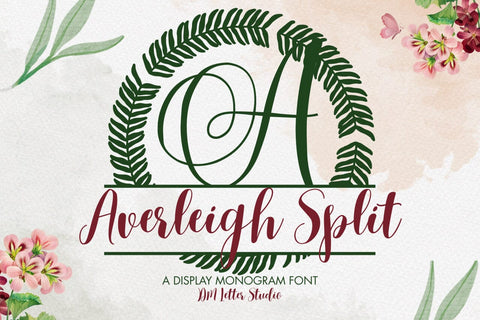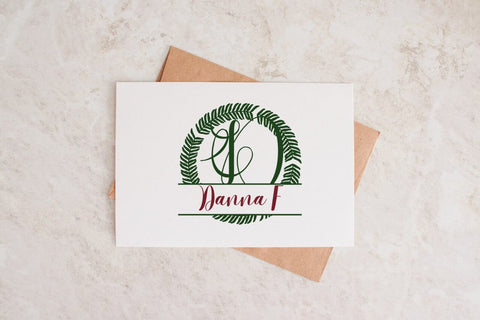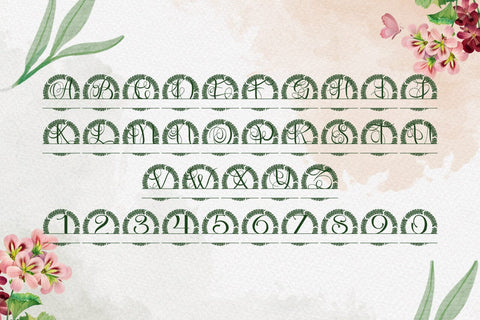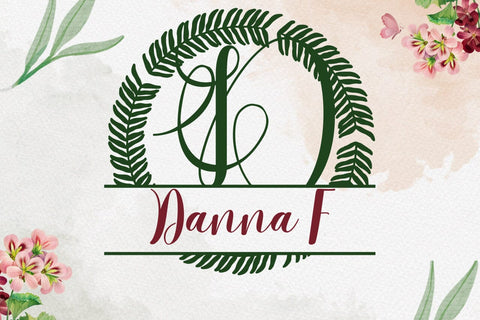
Averleigh Split Monogram Font
Meet Averleigh Split Monogram Font
Averleigh Split Monogram Font turns any initial into a poised, name-ready emblem in seconds. Calm, elegant letterforms create a premium look, while a precise horizontal split gives you natural space for names, dates, or short words. Because spacing stays even and counters remain open, designs read clearly on tiny tags and still look striking on signs, tumblers, ornaments, menus, and wall art. Pair it with a clean sans or a light script and every layout stays readable and refined.
Where this split monogram font shines
Set one hero initial, then place the family name inside the split for instant personalization. Try couple names for engagement gifts, venue names for wayfinding, or short words like Home, Welcome, and Love for seasonal décor. Since proportions favor clarity, files scale smoothly for Cricut, Silhouette, Glowforge, and laser projects. As a result, batching custom orders for markets and storefronts becomes fast, consistent, and profitable.
Design tips for Averleigh Split Monogram
Keep the hero initial large and let white space breathe. Place the split at center or slightly low for a calm baseline. Choose a simple secondary font inside the split to protect legibility on small items. Because the style is airy and elegant, metallic foils, linen textures, pearlescent stocks, and natural woods add instant value. Keep names concise so compositions stay balanced and clear at thumbnail size.
Uppercase alphabet optimized for split monograms
Matching lowercase, numbers, punctuation
Why makers choose this split monogram font
You want fast personalization that still feels bespoke. Averleigh Split Monogram Font delivers consistent, high-end name designs in minutes while keeping your shop’s visual language cohesive from gifts to signage.